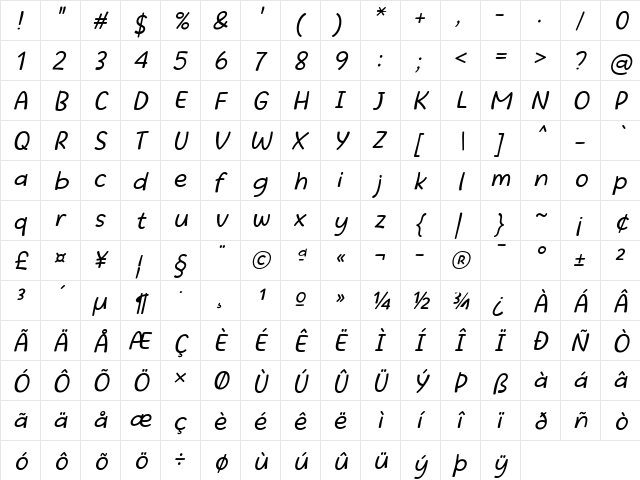
Beatific Margella Italic
Design Context for Beatific Margella Typeface
Beatific Margella is a composed and adaptable typeface that performs quietly and consistently across a wide range of design contexts. Its italic angle brings a sense of urgency and motion to the letterforms.